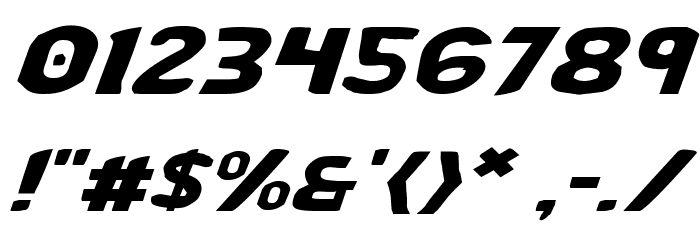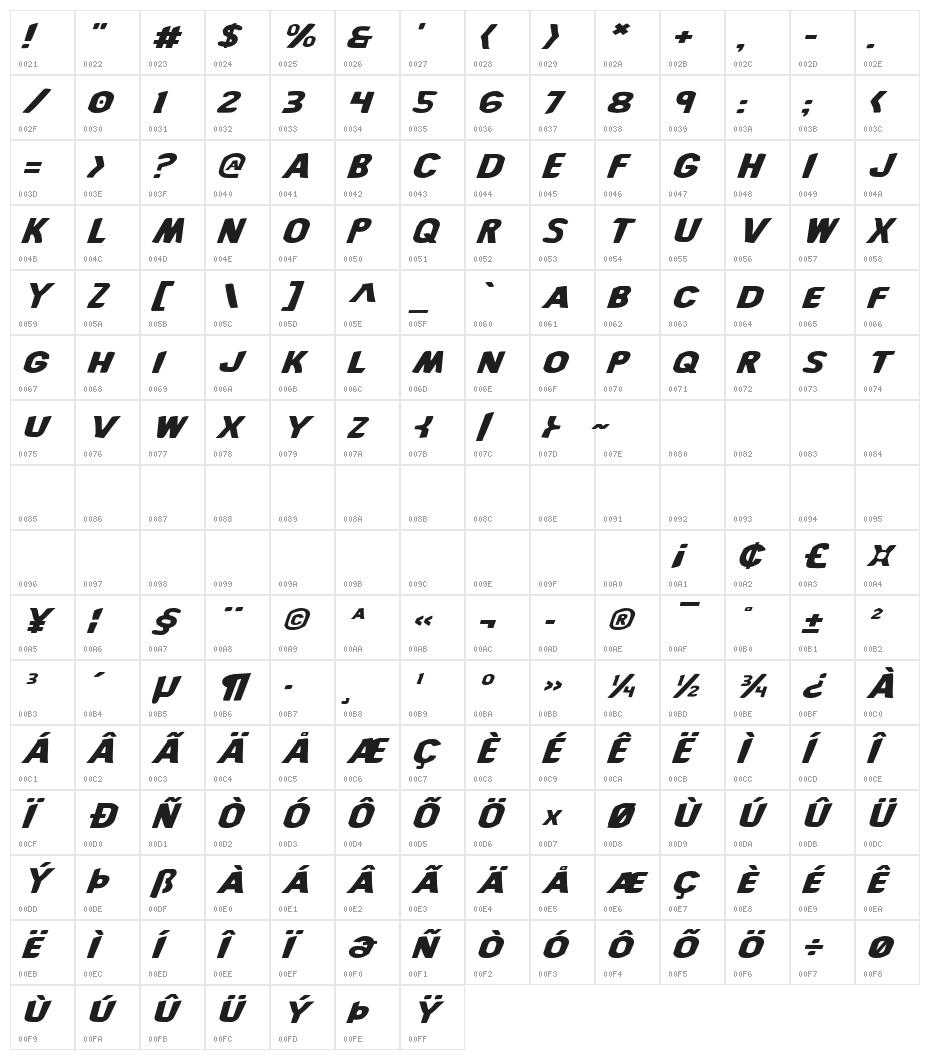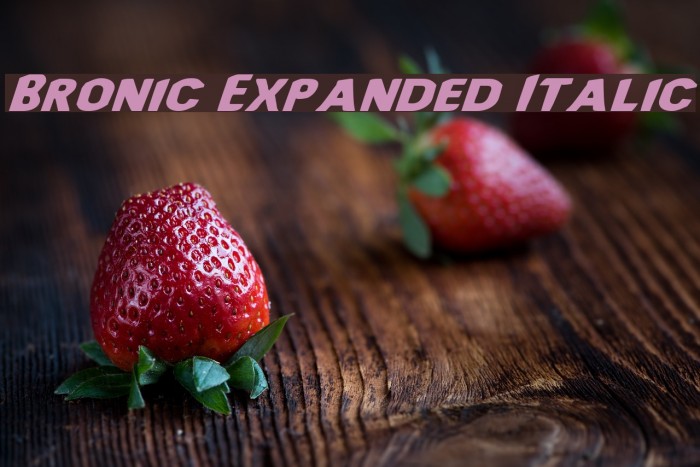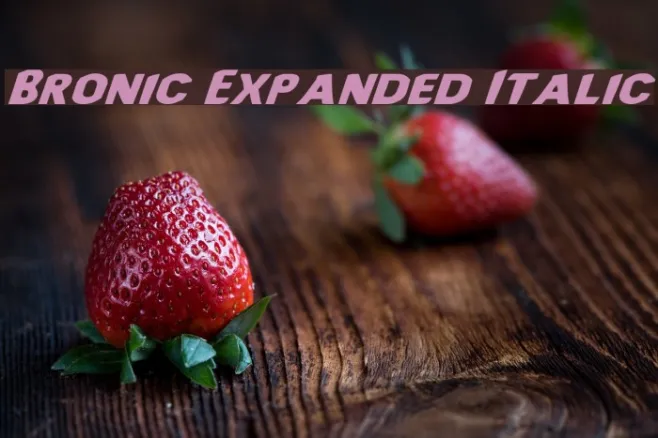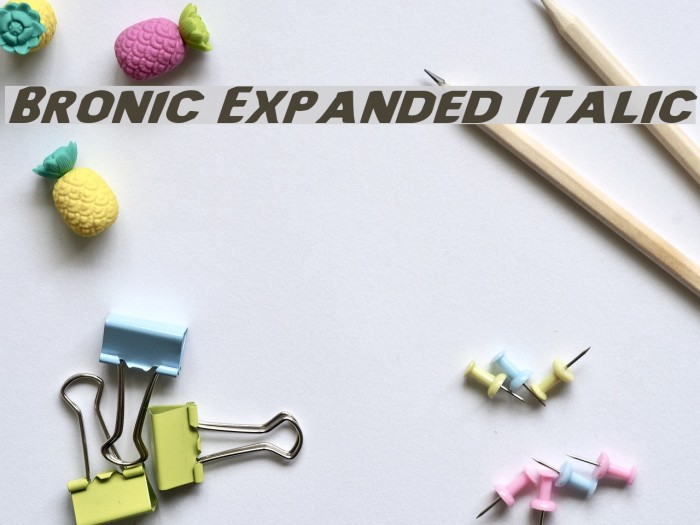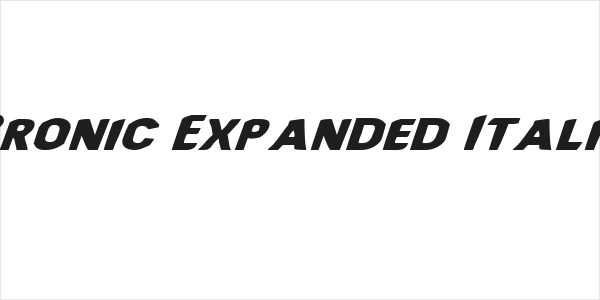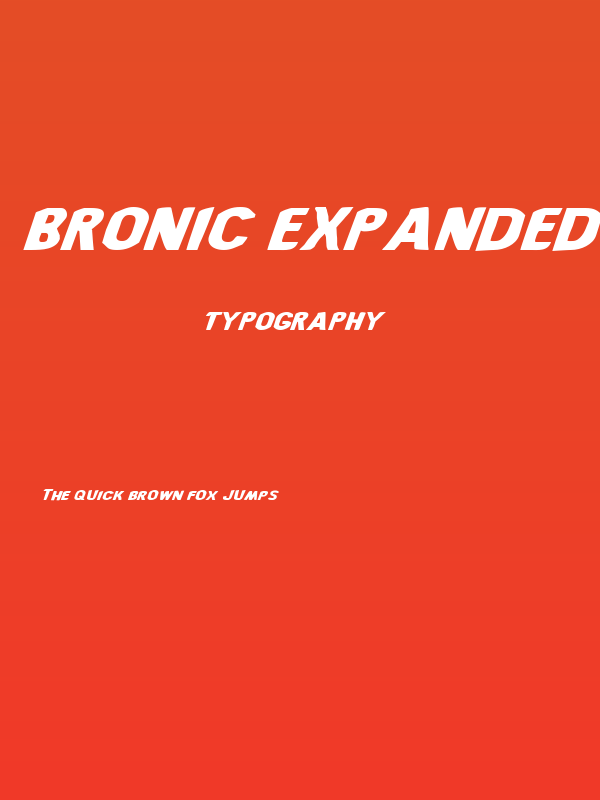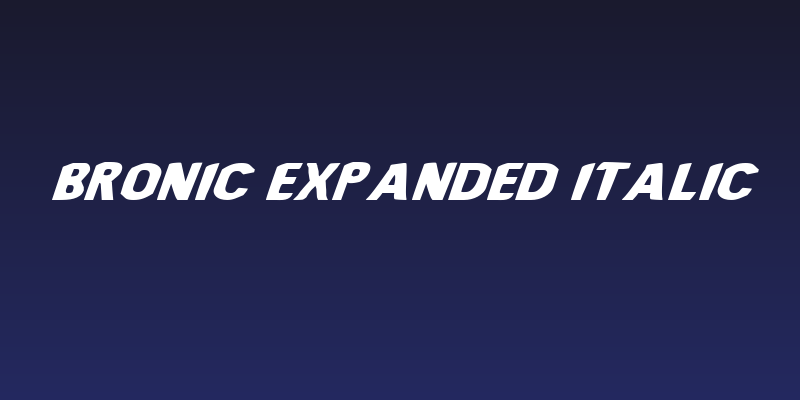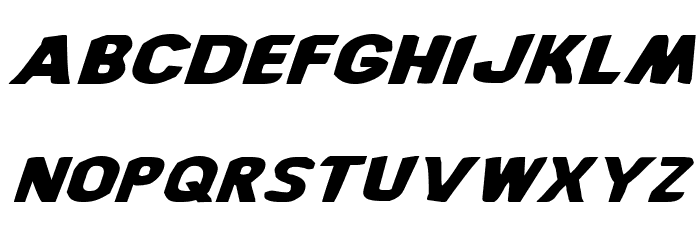
Bronic Expanded Italic Font
Bronic Expanded Italic Description
This font features a bold and dynamic style with an italic slant, giving it a sense of movement and energy. The characters are expanded, providing a wide and impactful appearance. The strokes are thick and consistent, contributing to a strong visual presence. The design is modern and sleek, suitable for making a statement. The uppercase and lowercase letters maintain a uniform style, ensuring readability while adding a touch of flair. The numerals and special characters are designed to match the overall aesthetic, making this font versatile for various applications.
| Proposed Projects | Ideal for sports branding, dynamic posters, bold headlines, and modern advertising campaigns. |